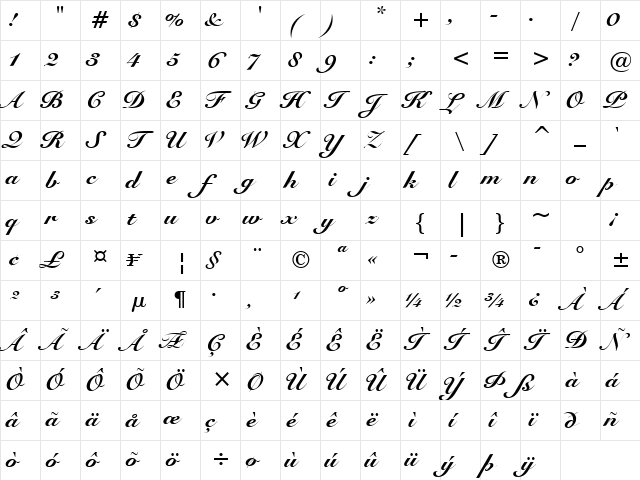
Complete Snell Blk BT Black glyph index. Displaying only characters natively supported by Snell Blk BT Black font.
Snell Blk BT is a composed and adaptable typeface that performs quietly and consistently across a wide range of design contexts.